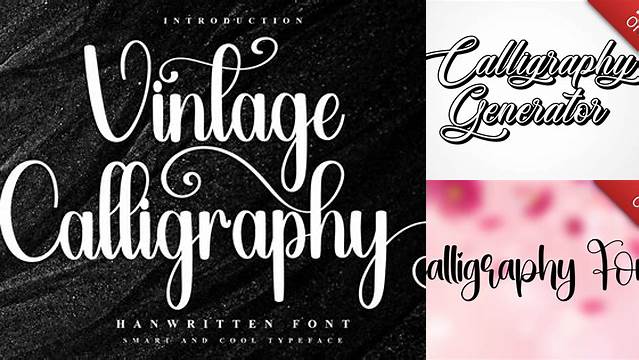
Free Vintage Calligraphy Font Generator
Are you looking to add a touch of vintage elegance to your design projects? Do you want your invitations, logos, or social media graphics to exude classic charm? Well, you've come to the right place! In this article, we'll explore the world of vintage calligraphy fonts and introduce you to some fantastic free tools that can help you generate them. Whether you're a seasoned designer or just starting out, you'll discover how easy it is to create beautiful, eye-catching designs with the perfect vintage calligraphy font.
What is Vintage Calligraphy?
Before we dive into the tools, let's talk about what vintage calligraphy actually is. Calligraphy, in general, is the art of beautiful handwriting. It's about more than just neatness; it's about the artistic expression of letters. Vintage calligraphy, specifically, draws inspiration from the elegant handwriting styles of past eras, think the flowing scripts of the Victorian era, the bold strokes of the Art Deco period, or the refined lettering of classic wedding invitations. These fonts often feature intricate flourishes, delicate lines, and a sense of timeless sophistication.
The beauty of vintage calligraphy lies in its ability to evoke nostalgia and add a touch of class to any project. Unlike modern, sans-serif fonts that often feel sleek and minimalist, vintage calligraphy fonts have a warmth and personality that can make your designs truly stand out. They can be used in a variety of contexts, from formal invitations and certificates to branding materials and website headers. Imagine a wedding invitation with elegant swirling script or a logo that exudes old-world charm. That's the power of vintage calligraphy.
Choosing the right vintage calligraphy font is crucial to achieving the desired effect. Each font has its own unique personality and evokes a specific mood. Some are light and airy, perfect for romantic themes, while others are bold and dramatic, ideal for making a statement. Factors to consider include the thickness of the strokes, the presence of flourishes, and the overall legibility of the font. It's also important to think about the context in which the font will be used. A font that looks stunning on a large poster might not be as effective on a small business card.
Fortunately, you don't need to be a professional calligrapher to use vintage calligraphy in your designs. There are many resources available online that offer a wide selection of these fonts, both free and paid. In the following sections, we'll focus on free options and how you can use them to create amazing designs.
Why Use a Vintage Calligraphy Font Generator?
Now that we've established the allure of vintage calligraphy, let's discuss why using a font generator can be a game-changer for your creative process. Guys, let's face it: finding the perfect font can sometimes feel like searching for a needle in a haystack. Sifting through endless font libraries, trying to imagine how each one will look in your design, can be time-consuming and, frankly, a little frustrating. That's where vintage calligraphy font generators come in to save the day!
Think of a font generator as your personal vintage calligraphy assistant. These tools allow you to quickly preview different fonts, experiment with various styles, and even customize certain aspects to match your specific needs. Instead of downloading countless fonts and trying them out one by one, you can simply type your text into the generator and see it rendered in a variety of vintage calligraphy styles instantly. This allows you to quickly narrow down your options and find the font that truly speaks to your project.
Another major advantage of using a font generator is the time-saving aspect. In today's fast-paced world, efficiency is key. Whether you're working on a tight deadline or simply want to free up more time for other creative tasks, a font generator can help you streamline your workflow. You can easily try out different fonts, adjust sizes and colors, and even add special effects, all within the generator's interface. This eliminates the need to switch between different applications or spend hours tweaking individual fonts.
Moreover, many vintage calligraphy font generators offer a level of customization that you might not find elsewhere. Some tools allow you to adjust the spacing between letters, the thickness of strokes, or even the angle of the script. This level of control can be incredibly valuable if you're looking to create a truly unique and personalized design. Imagine being able to subtly tweak a font to perfectly match the tone and style of your brand or event. That's the power of customization!
Finally, let's not forget the accessibility factor. Many excellent vintage calligraphy font generators are available online for free. This means that you don't need to invest in expensive software or font libraries to create stunning designs. Whether you're a student, a small business owner, or simply a hobbyist, you can access these tools and start experimenting with vintage calligraphy right away. This democratization of design is a fantastic thing, allowing anyone to express their creativity without breaking the bank.